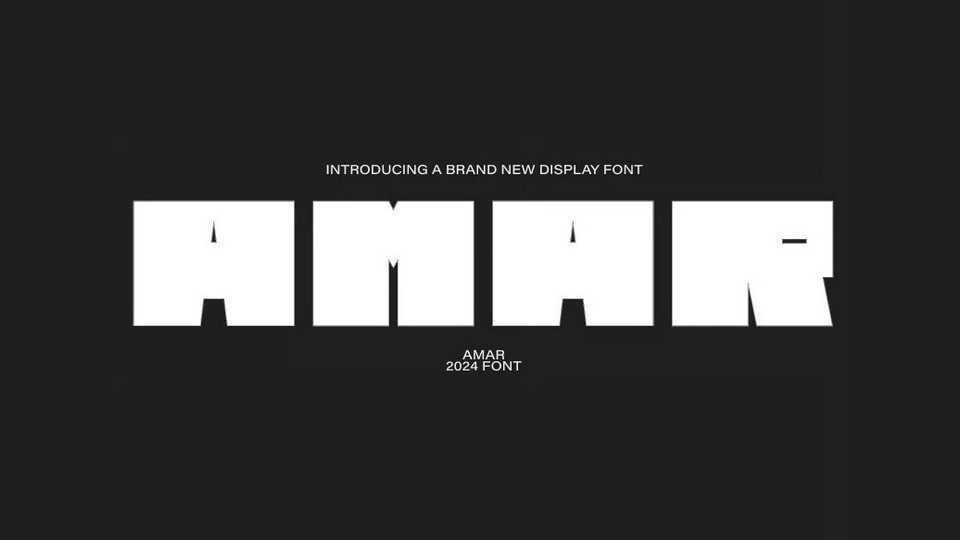
Download Amar font, a heavy display typeface that commands attention with its solid and imposing presence. Amar font is crafted with thick lines and sharp corners, creating a strong and impactful typographic statement.
Designer: Lucia Ramirez